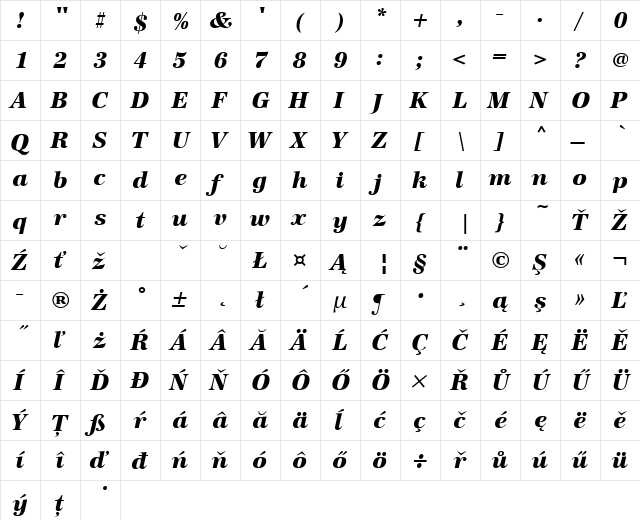
URWAntiquaTEEExtBol Italic
Design Context for URWAntiquaTEEExtBol Typeface
URWAntiquaTEEExtBol offers clean, dependable letterforms without strong stylistic allegiance, making it a practical choice for designers who need flexibility. The slanted form adds forward momentum and visual energy.
Pro Tip: Use URWAntiquaTEEExtBol for emphasis, pull quotes, and subheadings where its slanted energy can add rhythm to the layout.